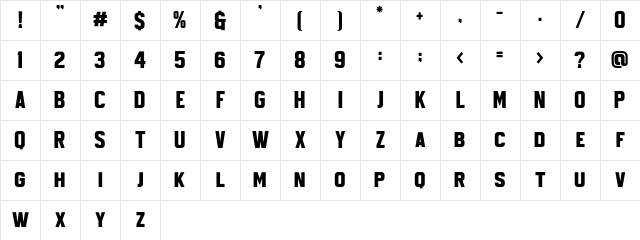
Urban Shadow Sans Serif Regular
Foundry: Blankids Studio
Designer: Bangkit Tri Setiadi
Design Context for Urban Shadow Sans Serif
Urban Shadow Sans Serif is built around its visual character rather than neutral utility - its distinctive forms are designed to make an impression at display sizes.
Font Pairing: Pair with a clean neutral sans-serif for body copy to let Urban Shadow Sans Serif's character lead without overwhelming the composition.
Pro Tip: Use Urban Shadow Sans Serif exclusively at display sizes - it was designed to be seen, not read at length. Let a neutral companion handle body copy.